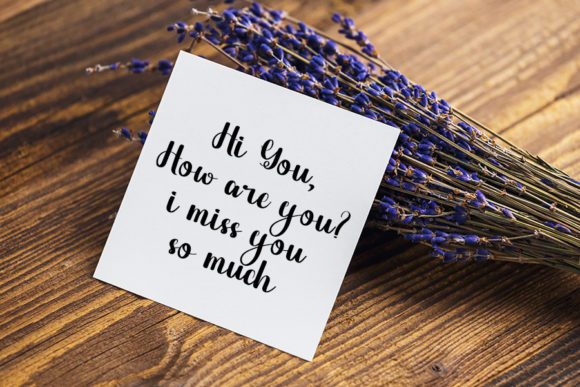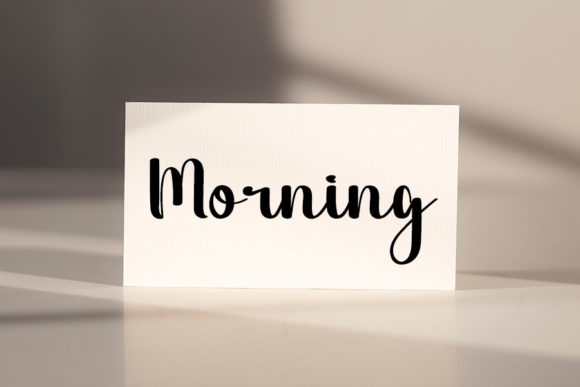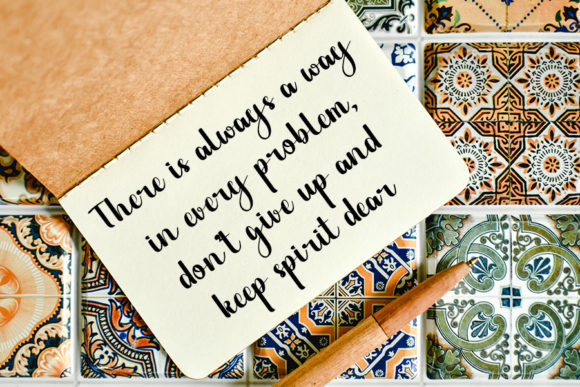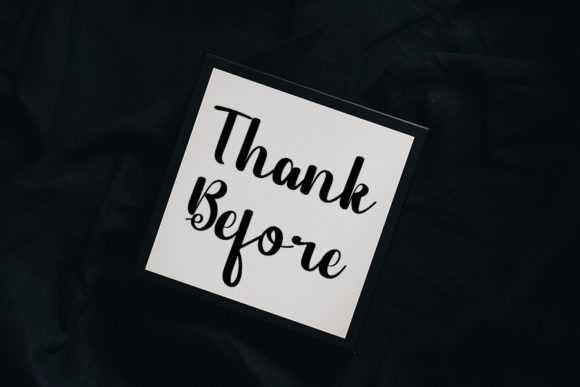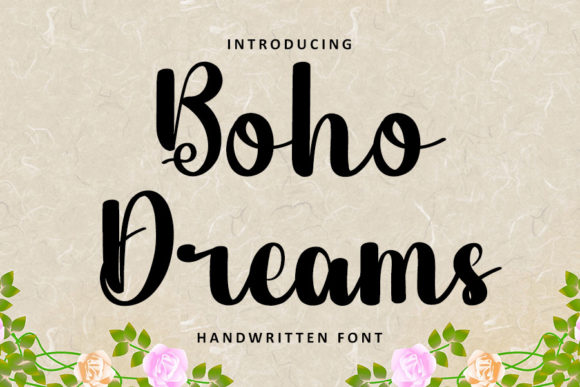
Introducing Boho Dreams Font: Elevate Your Designs with Timeless Elegance
Are you a designer or crafter looking for a font that exudes style, sophistication, and a touch of bohemian charm? Look no further than Boho Dreams Font, a stunning handwritten font that brings a contemporary atmosphere and impeccable form to your projects. Inspired by timeless classic calligraphy, Boho Dreams is the perfect addition to your typography collection.
The Inspiration Behind Boho Dreams
Boho Dreams Font draws inspiration from the world of classic calligraphy, where elegance and refinement reign supreme. The font’s creator aimed to capture the essence of traditional calligraphy and infuse it with a modern twist, resulting in a unique and captivating typeface. The result is a font that is both balanced and varied, making it perfect for a wide range of design applications.
Key Features of Boho Dreams Font
So, what makes Boho Dreams Font so special? Here are just a few of its key features:
- Handwritten with love: Boho Dreams is a carefully crafted handwritten font, with each letter and character lovingly designed to create a sense of warmth and personality.
- Contemporary atmosphere: Despite its classic inspiration, Boho Dreams has a distinctly modern feel, making it perfect for designers and crafters who want to add a touch of sophistication to their work.
- Impeccable form: The font’s creator has paid meticulous attention to detail, ensuring that every letterform is beautifully proportioned and balanced.
- Balanced and varied: Boho Dreams offers a range of variations and alternates, allowing you to create unique and interesting text layouts that capture the eye.
Boho Dreams Font is a versatile typeface that is perfect for a wide range of design applications, including:
- Branding and packaging: Add a touch of elegance and sophistication to your brand identity with Boho Dreams.
- Stationery and cards: Create beautiful, hand-crafted stationery and cards that exude warmth and personality.
- Web design: Use Boho Dreams to add a touch of bohemian charm to your website or blog.
- Crafting and DIY projects: Boho Dreams is perfect for crafters who want to add a personal touch to their projects, from scrapbooking to journaling.
Why Choose Boho Dreams Font?
- Unique and distinctive: Boho Dreams is a one-of-a-kind font that will set your designs apart from the crowd.
- Elegant and sophisticated: The font’s classic inspiration and modern twist make it perfect for designers and crafters who want to add a touch of elegance to their work.
In conclusion, Boho Dreams Font is a stunning handwritten font that brings a touch of timeless elegance and bohemian charm to your designs. With its impeccable form, balanced and varied character set, and contemporary atmosphere, Boho Dreams is the perfect addition to your typography collection. Whether you’re a designer or crafter, this font is sure to inspire and elevate your work.